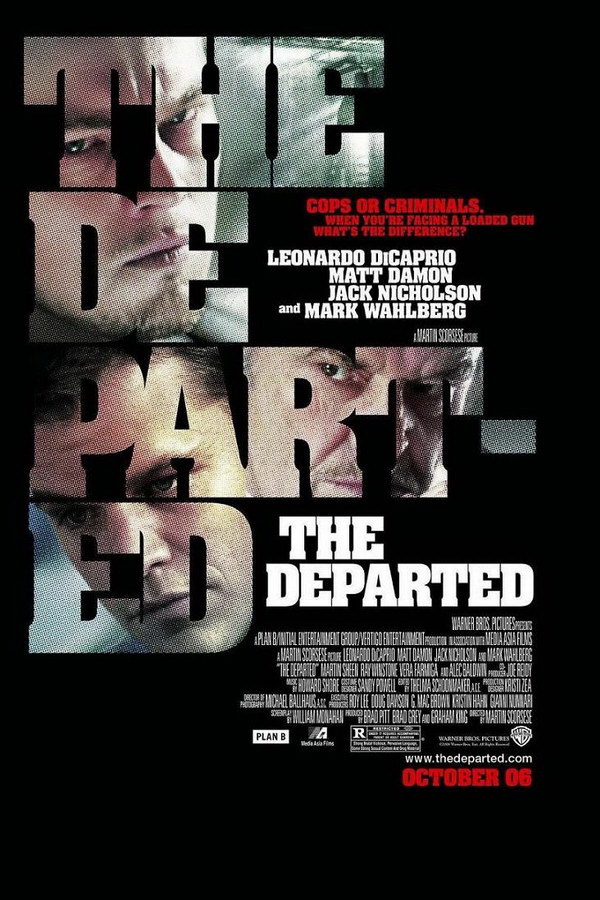
The Departed Font
The movie title "The Departed" on the poster features Aachen Bold font, created by Letraset Type Director Colin Brignall in the 1960s. This commercial font can be further explored here.